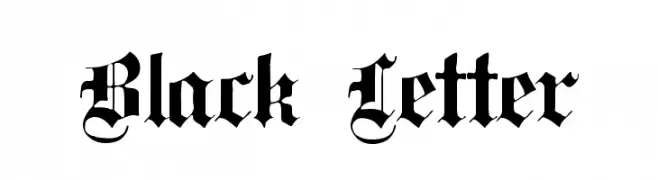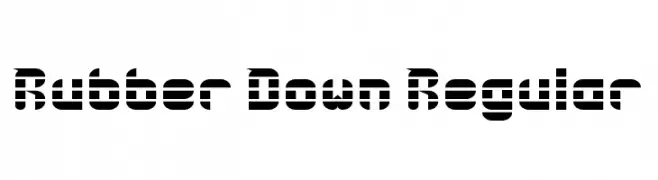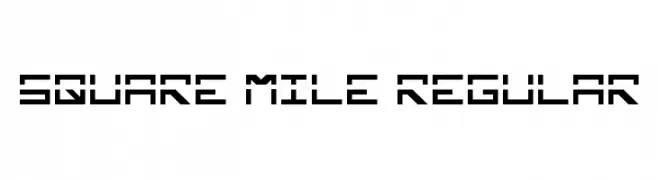
( Brixdee - jack-oatley.com/ )
A bold, geometric font with a stencil-like, segmented design.
( Brixdee - jack-oatley.com/ )
A modern, geometric font with circular and abstract elements.
( Brixdee - jack-oatley.com/ )
A geometric, block-like font with a futuristic and digital aesthetic.
( TUPAX Pindoramogràphïco - Tiago Siliprandi Giordani - www.tupax.com.br )
A modern, geometric font with sharp angles and consistent stroke width.
( Angst )
An ornate blackletter font with a medieval, gothic style.
( Digital Type Foundry - www.digitaltypefoundry.com/ )
A decorative font with geometric shapes and lines, offering a modern and abstract style.
( George Williams - web.archive.org/web/20051223080638/bibliofile.mc.duke.edu/gww/fonts/fonts.html )
A bold, classic serif font with pronounced serifs and slight stroke contrast.
( George Williams - web.archive.org/web/20051223080638/bibliofile.mc.duke.edu/gww/fonts/fonts.html )
An elegant serif italic font with smooth, flowing lines and a classic appearance.
( George Williams - web.archive.org/web/20051223080638/bibliofile.mc.duke.edu/gww/fonts/fonts.html )
A classic serif typeface with elegant, balanced letterforms and moderate contrast.
( Harris Type - www.harristype.com/ OFF SITE )
A clean, modern font with geometric influences and consistent stroke width.